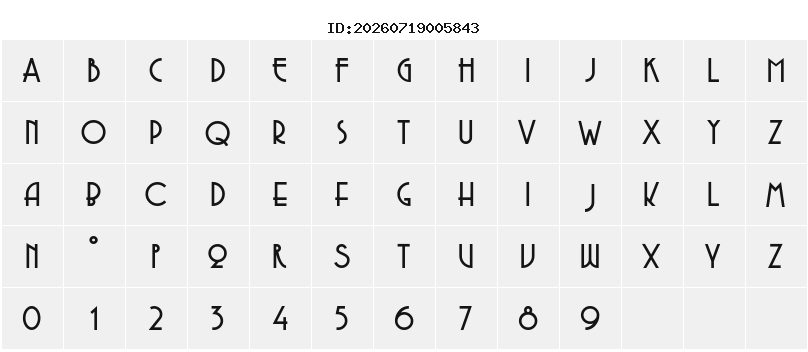
About Copasetic.ttf
Copasetic.ttf is a modern, elegant sans-serif font designed for ultimate readability and visual harmony. Perfect for branding, headlines, web design, and print materials.